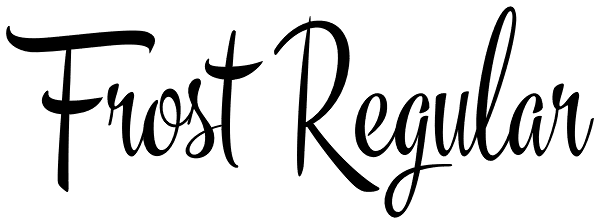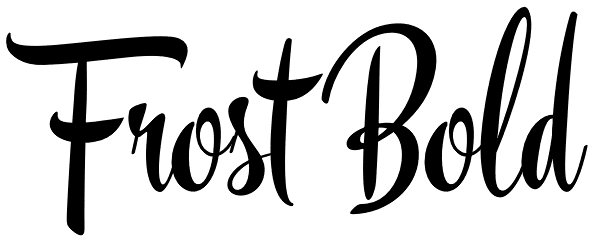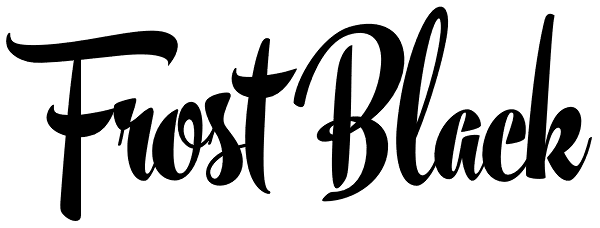
Frost
Firing Imaginations and lively connected script family of three weights, ornament and banner sets and separate caps and small caps designed to support the script. Frost is influenced by the hand lettering and sign painting of the 1950s and 1960s...
Frost Caps
Frost Ornaments
Frost Regular
Frost Banners
Frost Bold
Frost Black
Frost Small Caps